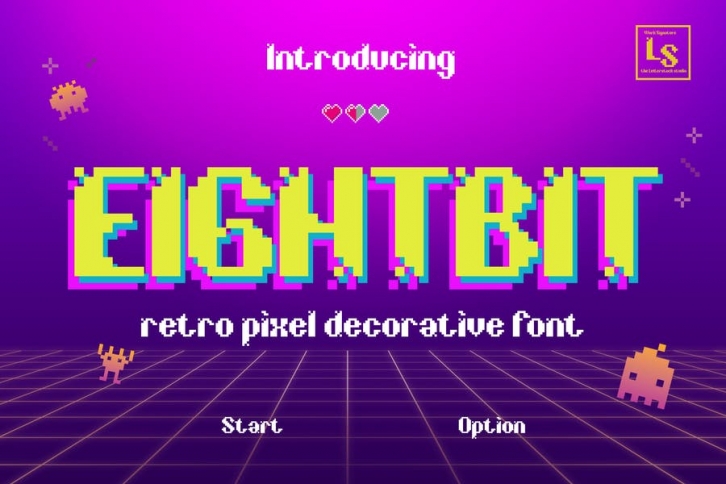
Eightbit Font
This pair was inspired by the retro eightbit video games poster design that i saw on some coffee shop, It was crafted by hand specially to add natural handmade feeling in its brand identity than i make it clean with pentool.
Opentype features Eightbit font has 201 character set included Eightbit Font is very good looking in logo, labels, product packaging, invitations, advertising and others.